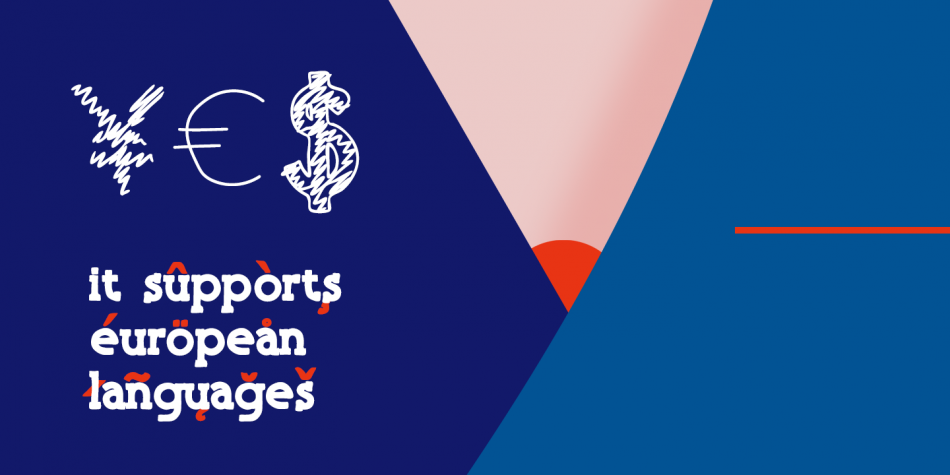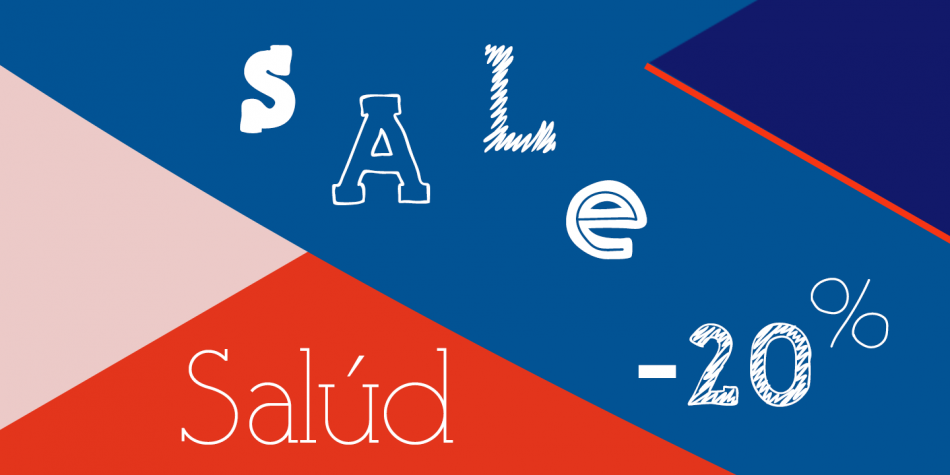
| Designed by Alex Etewut, Salud is a hand drawn, slab serif and hand display font family. This typeface has eight styles and was published by Etewut. |
Salúd is hand-drawn typeface based on light and bold slab serif. It has 8 font styles and supports extended latin. It may be used in presentation for a big company or in flyers for a birthday party.
Other words it plays at both sides: can be formal and at the same time funny.